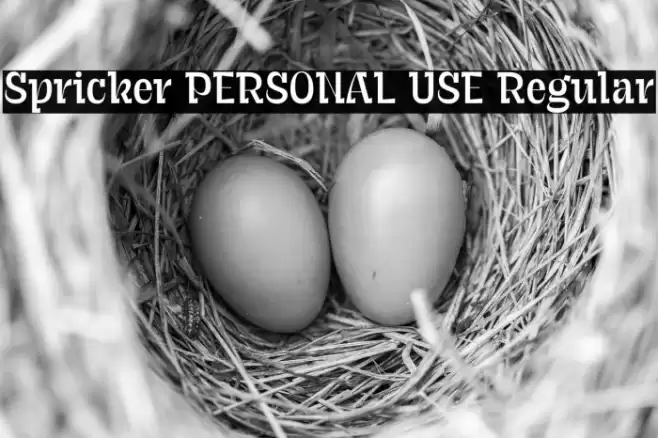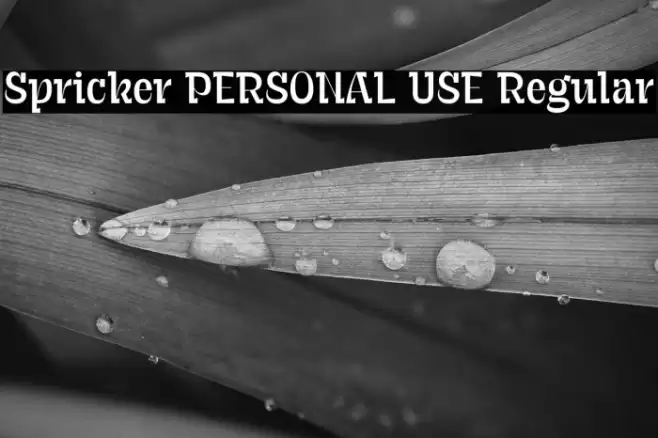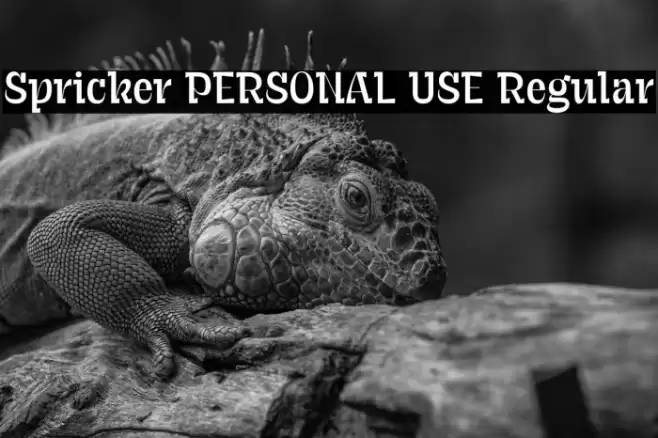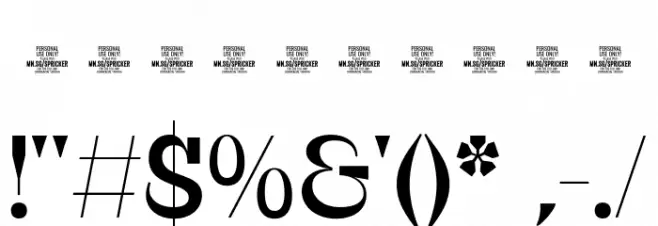
Spricker PERSONAL USE Regular Font
Spricker PERSONAL USE Regular Description
This font features a bold and striking design with high contrast between thick and thin strokes. The uppercase letters exhibit a modern and geometric style, with sharp angles and unique serifs that give it a distinctive look. The lowercase letters maintain a similar aesthetic, with rounded edges that soften the overall appearance. The numerals and special characters are consistent with the font's bold and dynamic style, making it suitable for attention-grabbing designs.
A bold, high-contrast font with a modern geometric style from Uncategorized fonts.
- Proposed Projects: Ideal for branding, poster design, and headlines where a strong visual impact is desired.